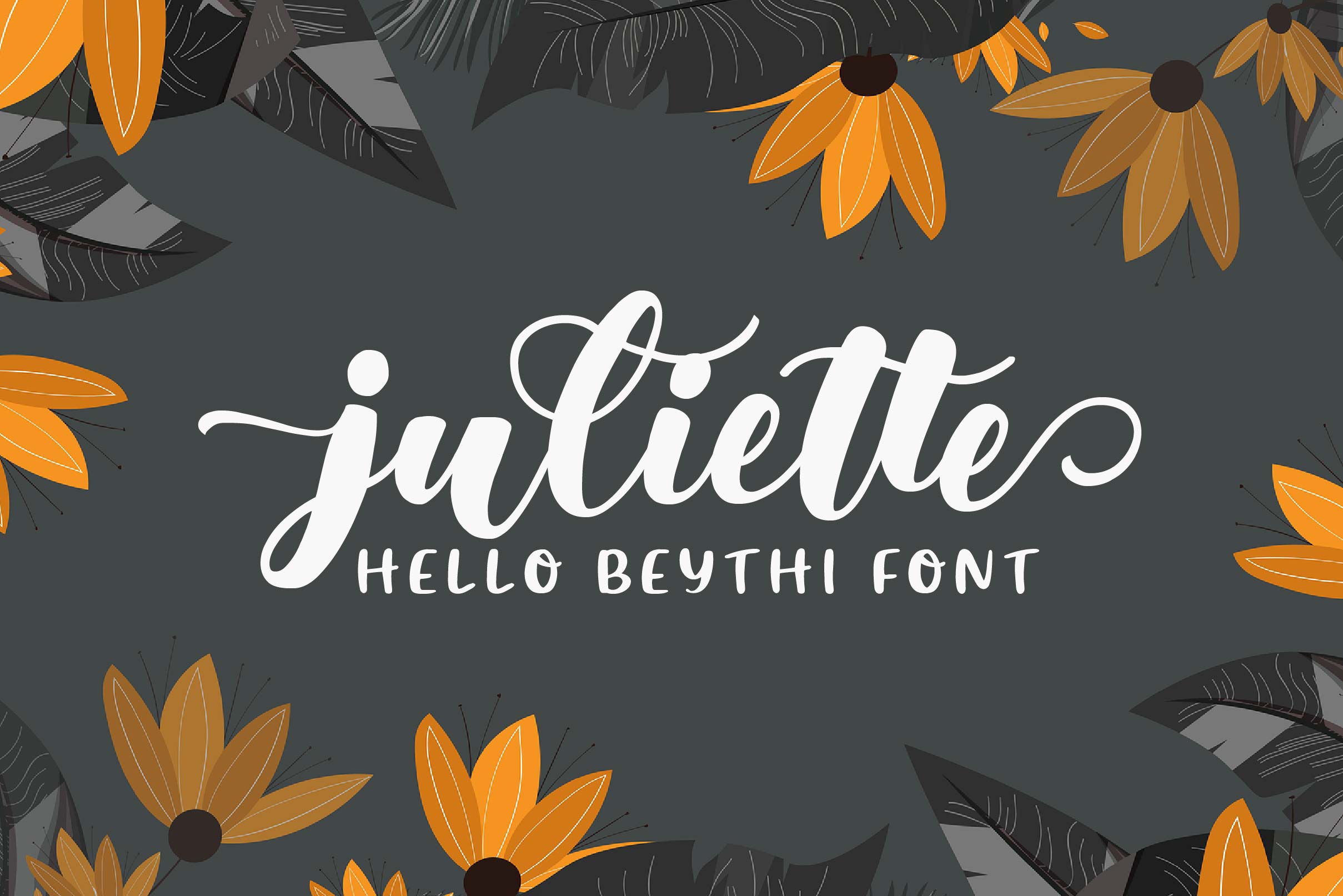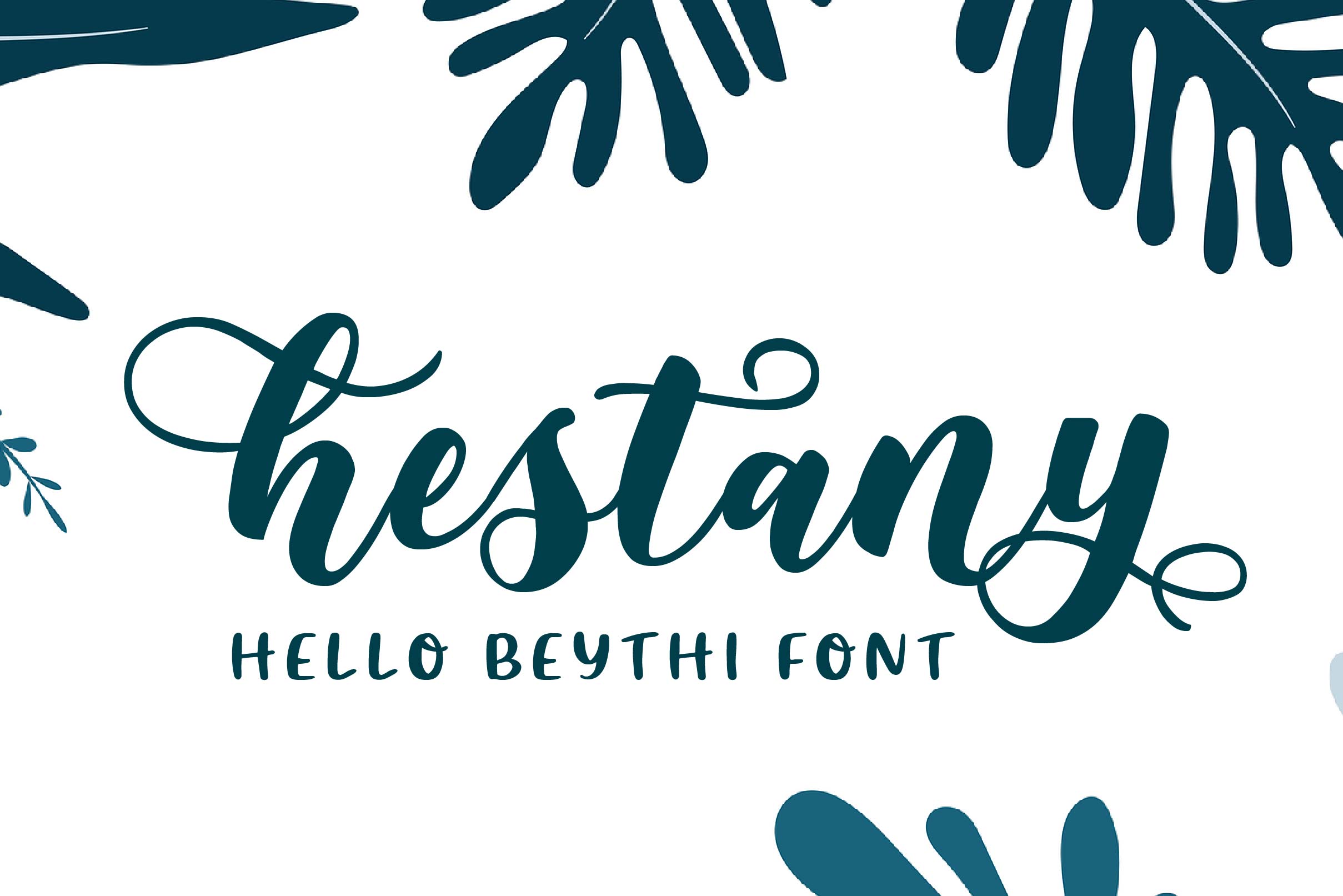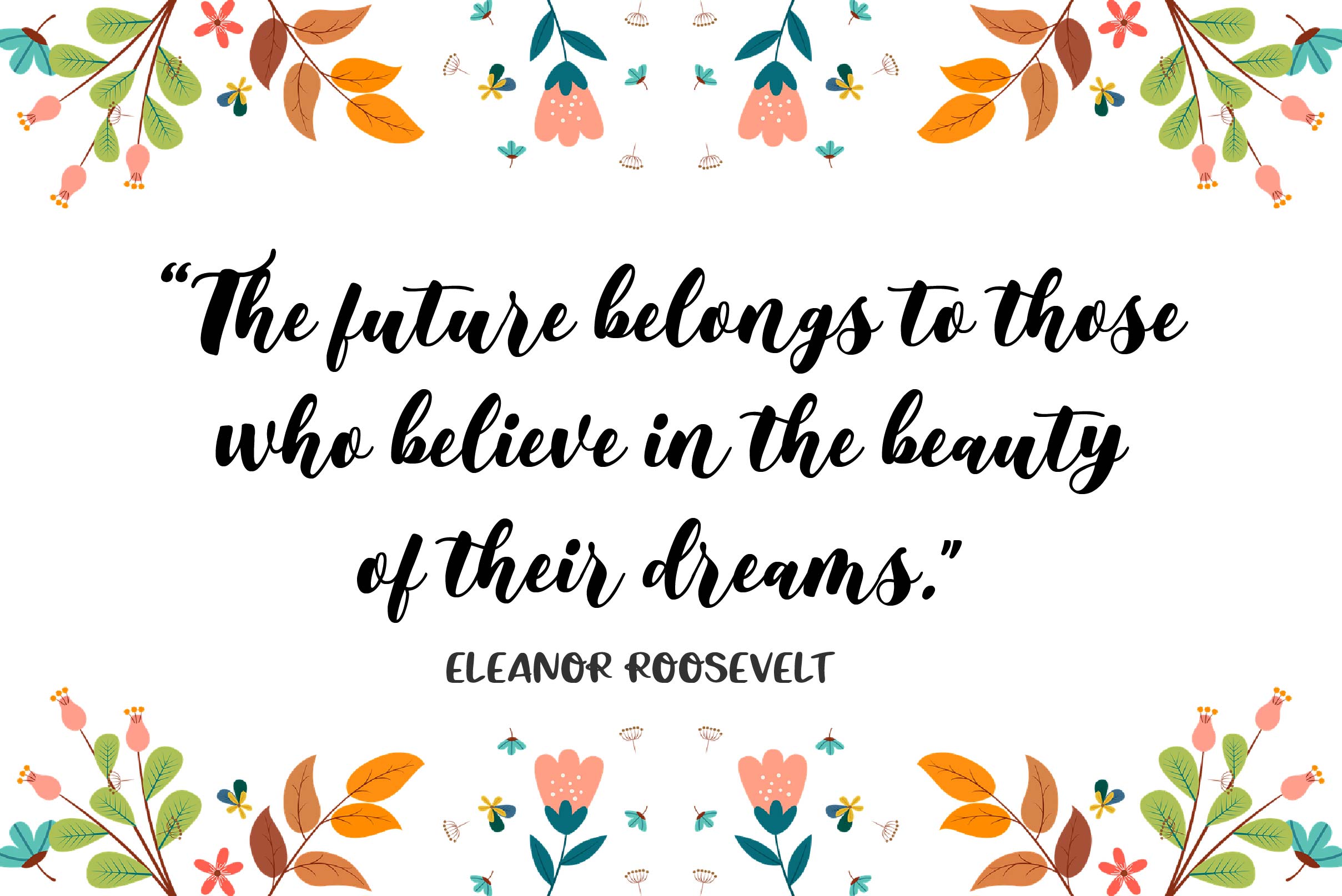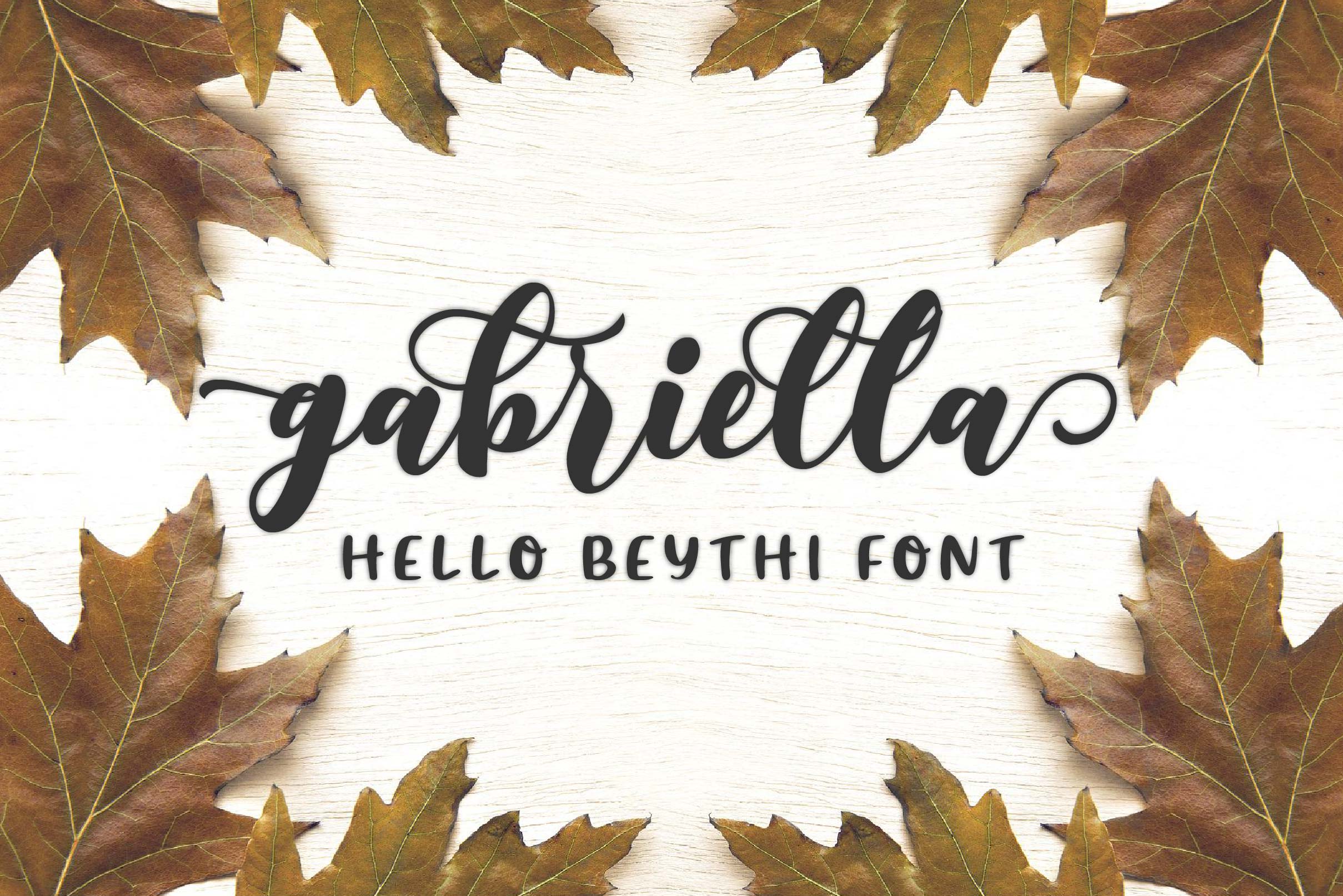
Hello Beythi Font
Hello Beythi Script Font is a classy and lovely script font. It has an elegant style and is perfect for creating original designs. It can be used for various purposes such as logos, wedding invitations, headings, t-shirts, letterhead, signage, labels, news, posters, badges and so much more.
– Uppercase, Lowercase, Numeral & Punctuation
– Alternate Letters, Ligature & Swash/Tail